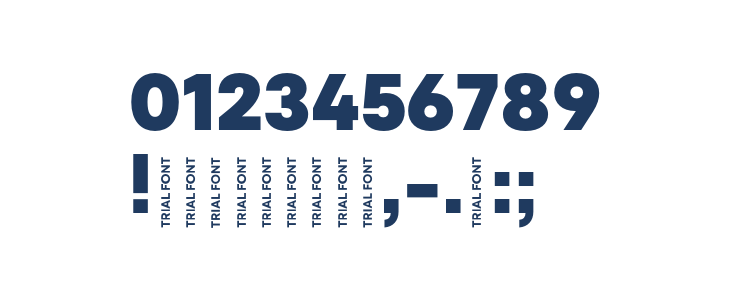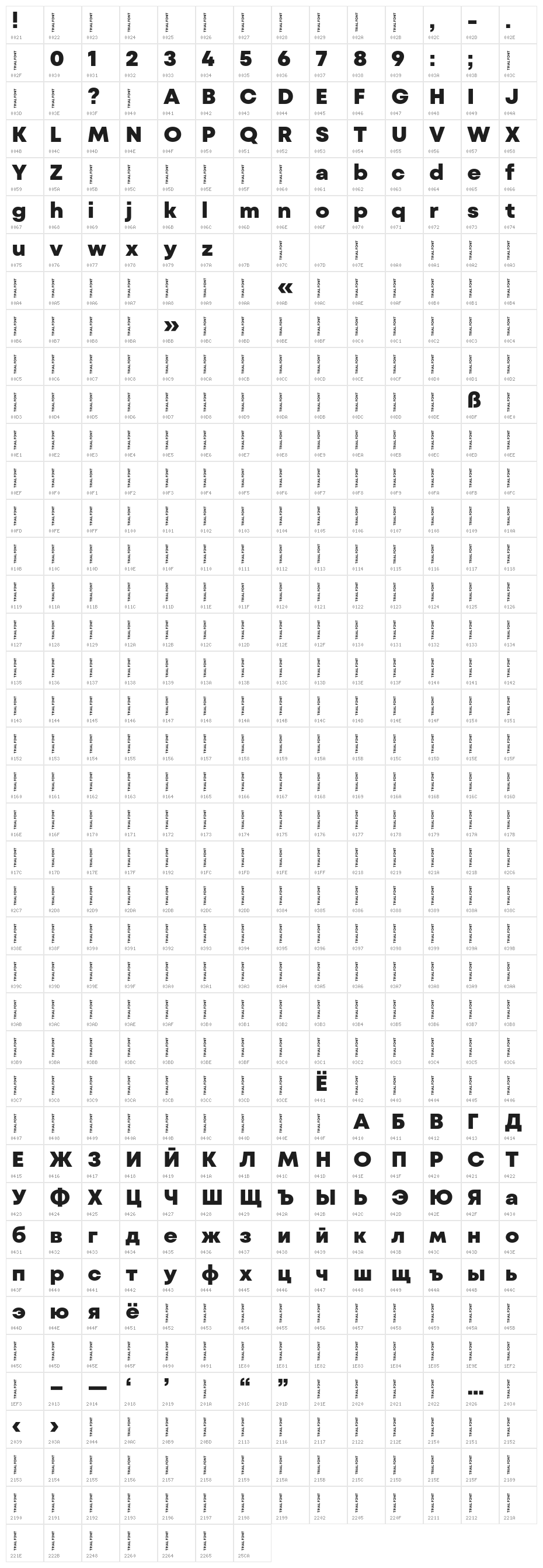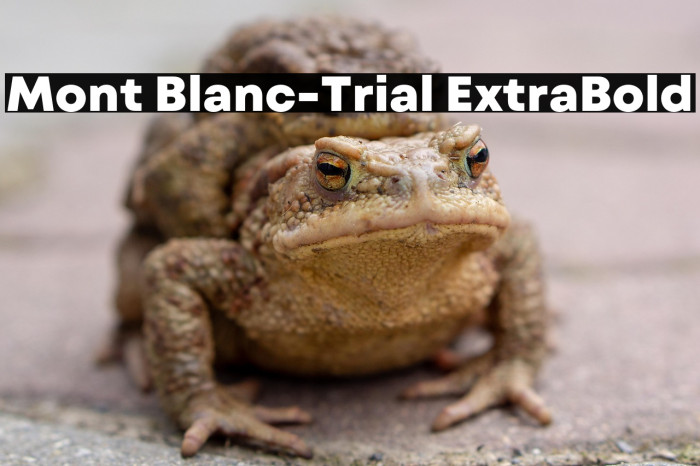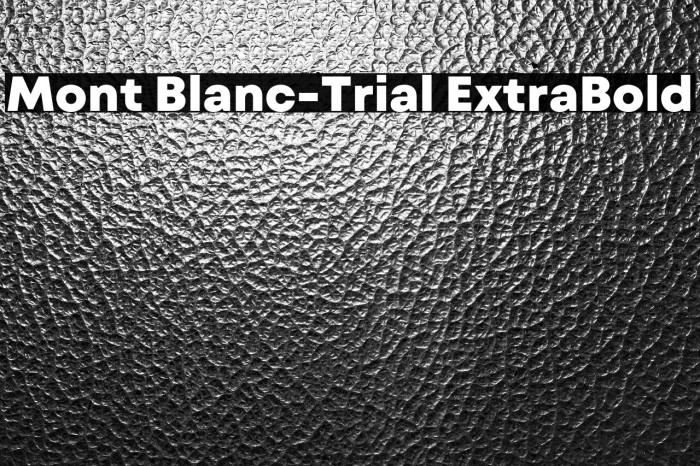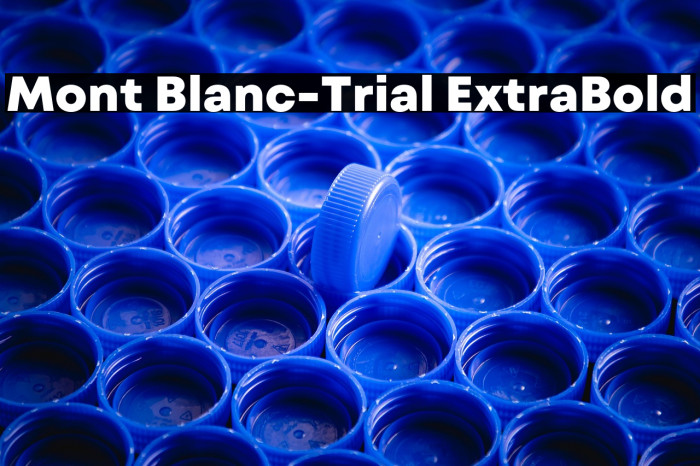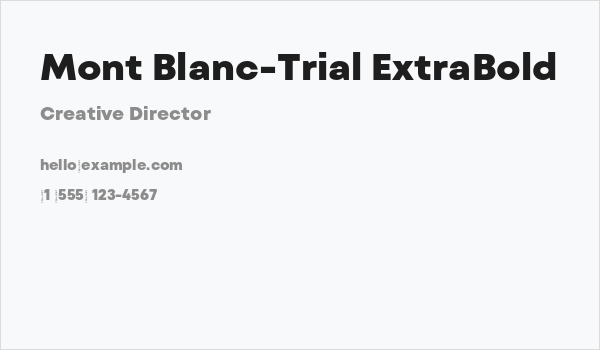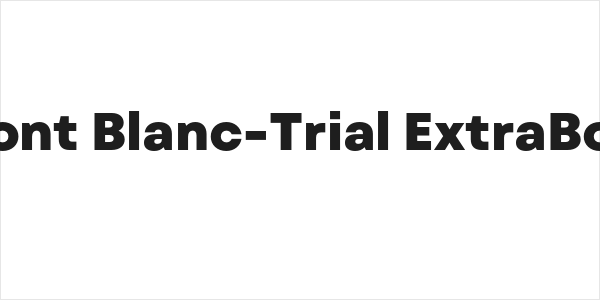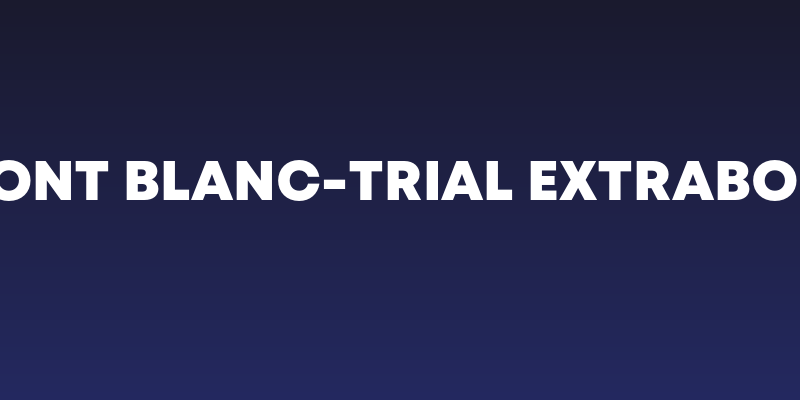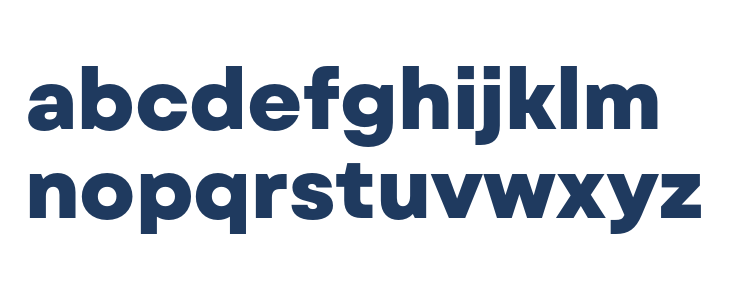
Mont Blanc-Trial ExtraBold Font
Mont Blanc-Trial ExtraBold Description
This font is characterized by its bold and strong presence, featuring thick strokes and a modern sans-serif style. The uppercase and lowercase letters are well-proportioned, with a consistent weight throughout. The numerals are clear and easily distinguishable, making them suitable for various applications. The special characters maintain the same boldness, ensuring uniformity across all glyphs. This font exudes a contemporary and professional feel, making it ideal for impactful headlines and branding materials.
| Proposed Projects | Ideal for branding, advertising, headlines, and digital media where a strong, modern presence is desired. |